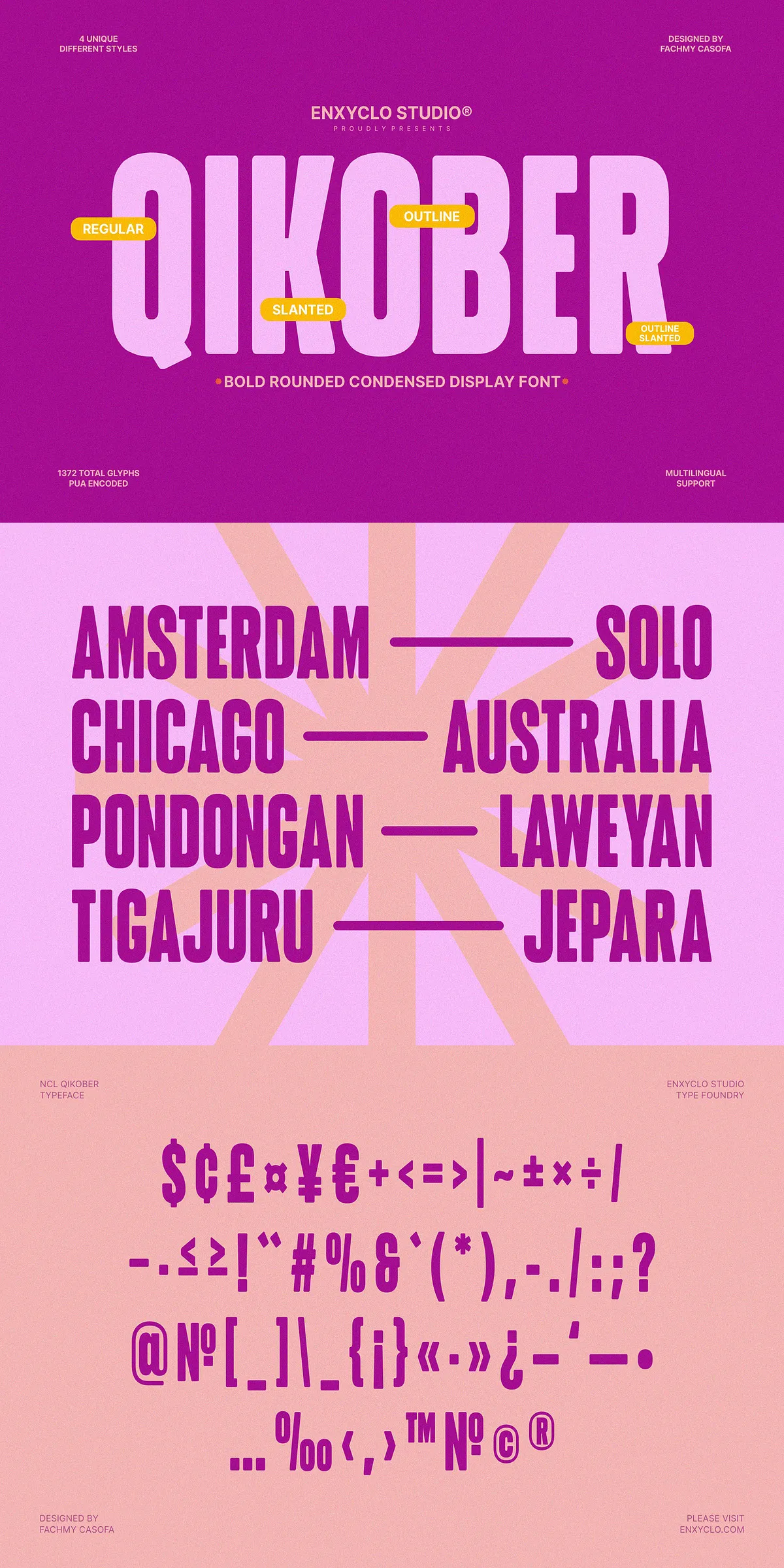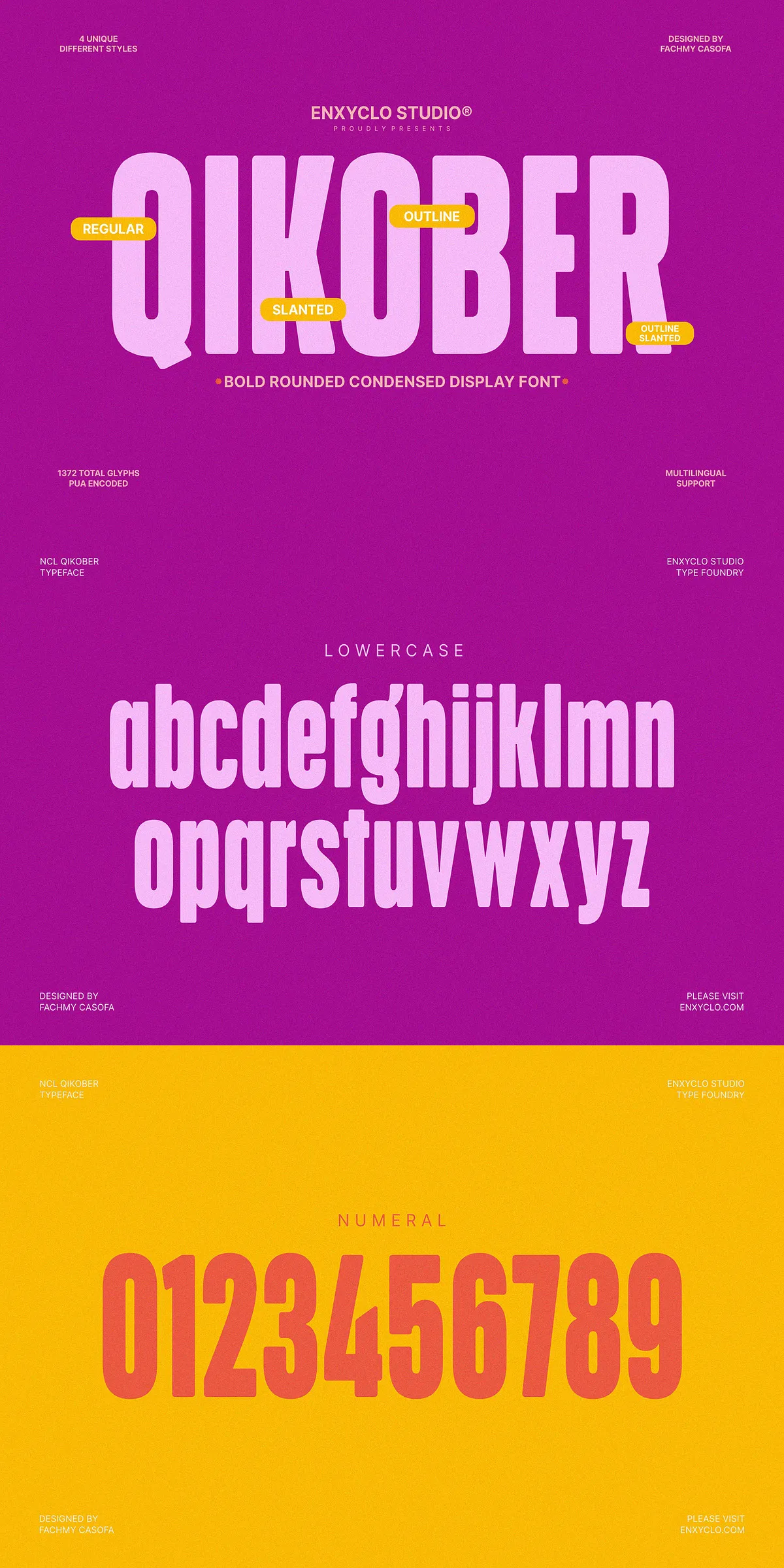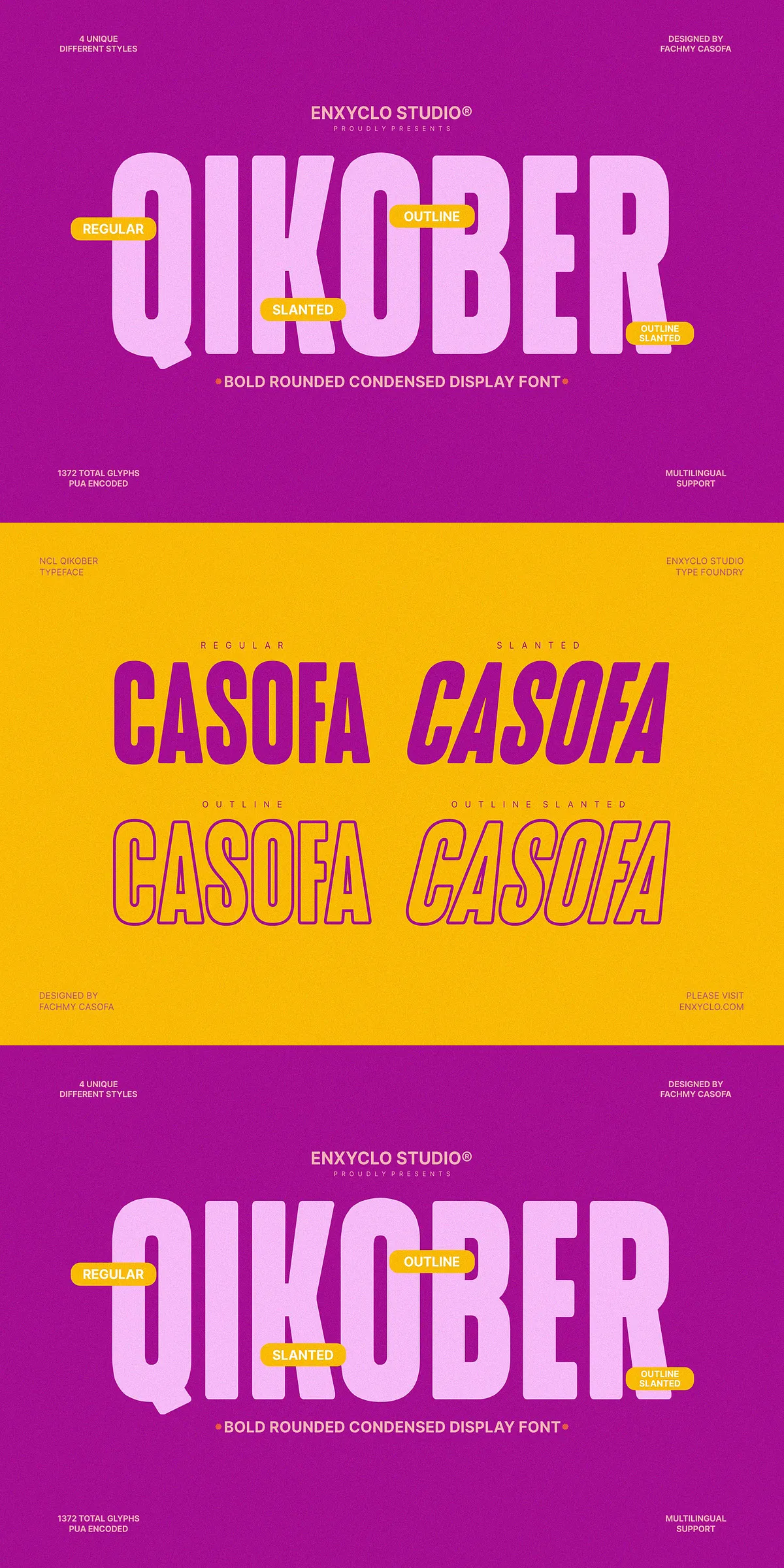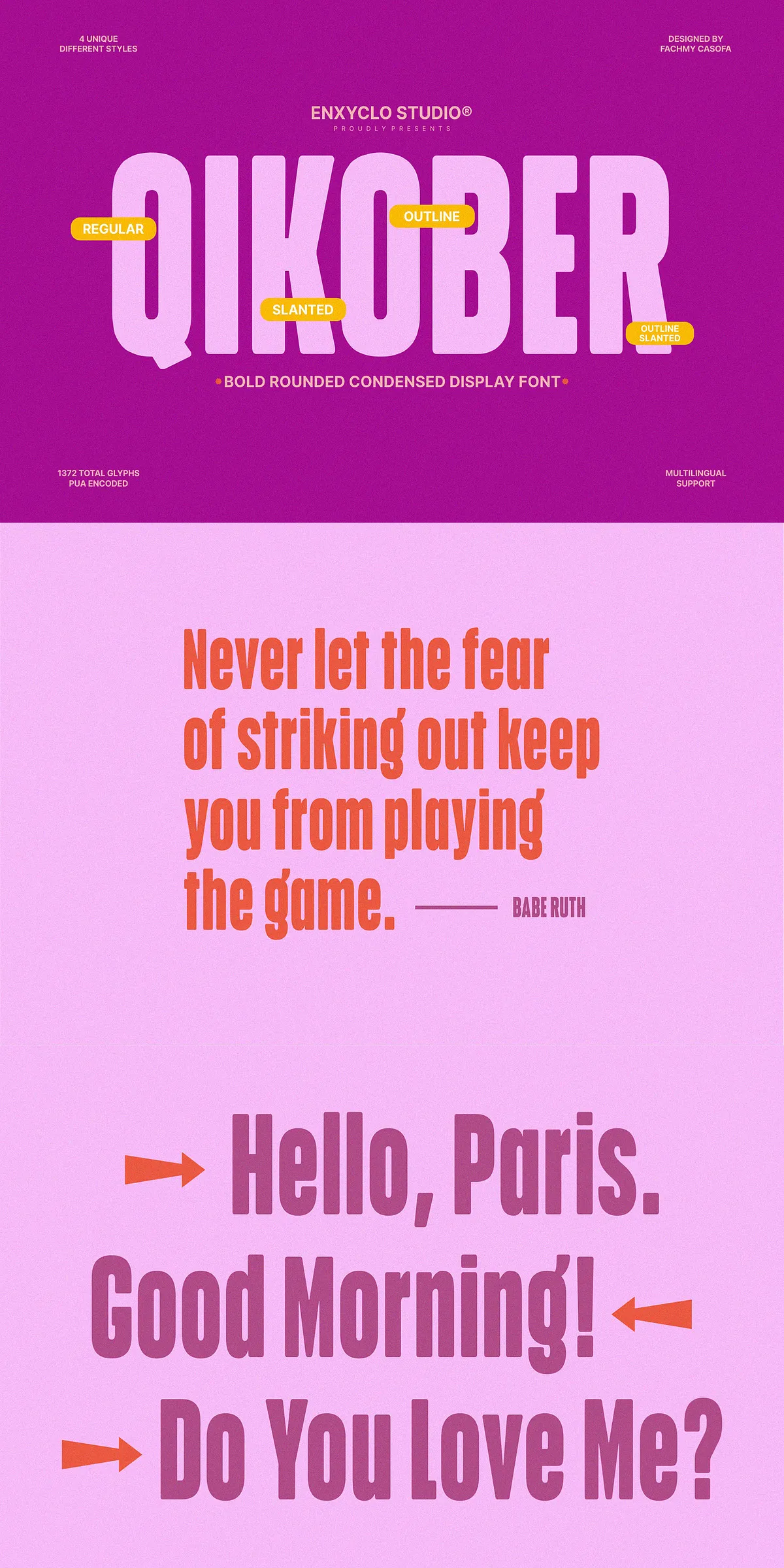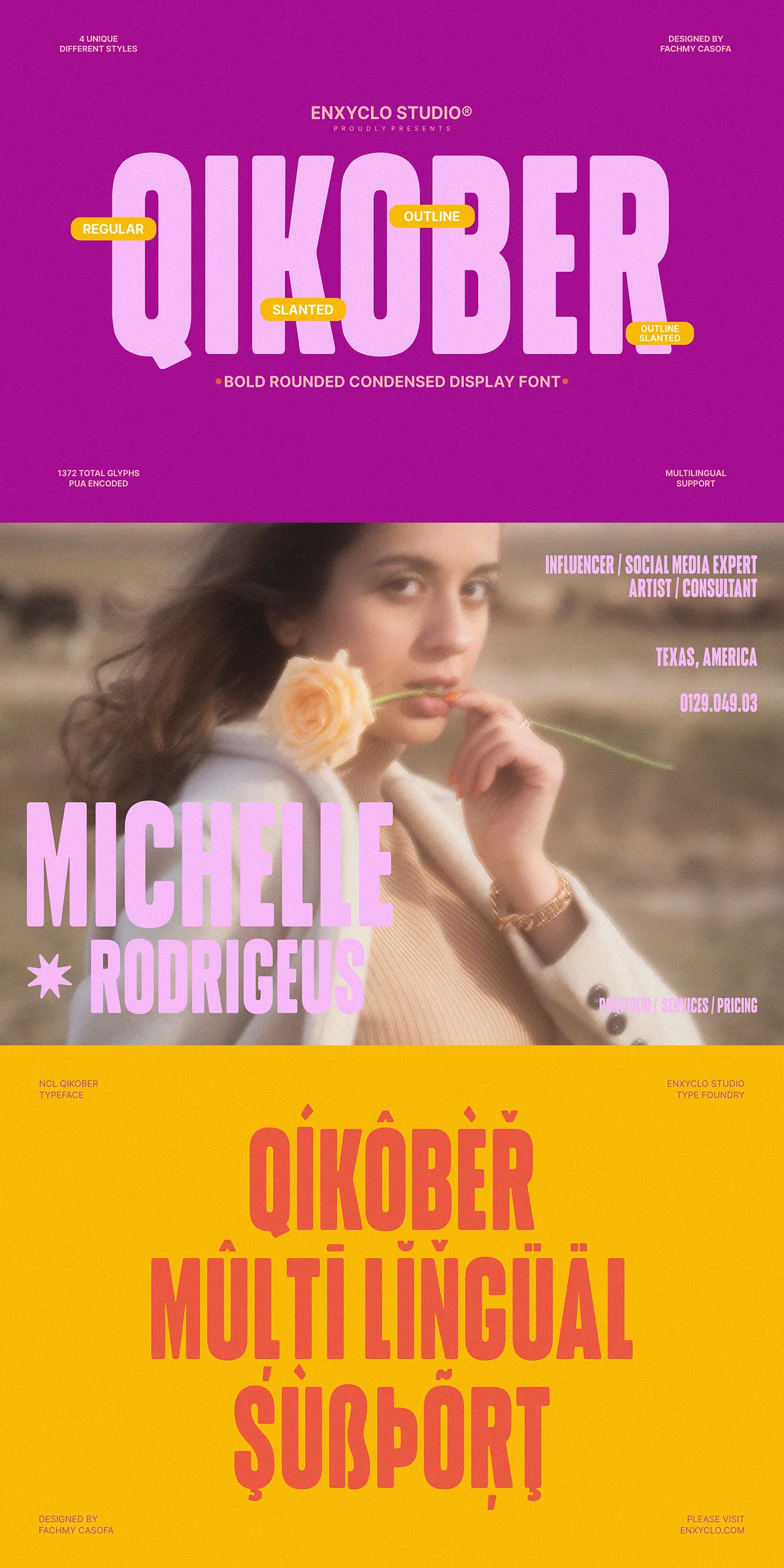
NCL QIKOBER delivers immediate presence and dynamic personality. Designed as a bold rounded condensed display typeface, it pushes creative concepts to the forefront and helps messages land with authority. Whether you create billboard headlines, magazine covers, strong logo marks, or striking web banners, NCL QIKOBER performs reliably at large sizes and remains surprisingly legible at smaller scales. The font actively elevates visual hierarchy and draws attention to titles, calls-to-action, and hero text without competing with supporting design elements.
Design Character And Visual Impact That Demands Attention
NCL QIKOBER pairs condensed proportions with softly rounded terminals to create an energetic yet approachable voice. The deliberately tight letterspacing and robust stroke weight generate maximum impact in display settings. Designers will value how the shapes preserve clarity when resized, how the rounded counters temper heaviness for warmer branding, and how the condensed form saves space while maintaining readability. This balance of strength and friendliness lets NCL QIKOBER lead identity systems, packaging, and editorial headings with confidence.
Intended Use Cases And Creative Applications For Designers
Use NCL QIKOBER for headline-driven design: hero banners, posters, magazine mastheads, outdoor advertising, storefront signage, and product labels. The font thrives in branding systems where a bold focal typeface defines tone and recognition. It also adapts to digital environments—navigation headings, promotional modules, and social graphics—thanks to its optimized webfont formats. When you need to make a statement, deploy NCL QIKOBER to anchor compositions and guide viewer attention directly to core messages.
Glyph Coverage And Styles Included In The Package
The complete family provides a total of 1,372 glyphs across all styles (343 glyphs per style). You get full uppercase and lowercase alphabets, numerals, punctuation, and common symbols. The glyph count supports alternates and diacritics needed for international typesetting. These assets make it easy to craft multilingual headlines, numeric displays, and branded typography systems without resorting to third-party substitutes.
Multilingual Support And Global Ready Typography
NCL QIKOBER includes multilingual support that covers the Extended Latin set, allowing you to run campaigns across many languages with typographic consistency. The font addresses diacritics and special characters used in Western and Central European languages so you can localize messaging without compromising design. This international readiness reduces production friction when adapting layouts and assets for different markets.
Implementation Tips And Pairing Recommendations
Drive emphasis by using the Regular or Slanted styles for primary headings and reserve Outline and Outline Slanted styles for layered or decorative headings. Pair NCL QIKOBER with a neutral humanist or geometric sans for body copy to preserve reading comfort. For digital projects, load the WOFF2 file as the primary webfont for optimal performance and provide WOFF as a fallback for older browsers. Tight tracking works well at large sizes, but increase letterspacing slightly for longer runs of headline text to improve legibility.
Why Choose NCL QIKOBER For Your Next Project
Choose NCL QIKOBER when you need a commanding display typeface that combines condensed efficiency with rounded warmth. The family’s bold appearance, multiple styles, broad glyph coverage, and web-ready formats streamline production and amplify creative impact. It helps brands stand out in saturated visual environments and gives designers a dependable tool for crafting memorable headlines, logos, and promotional graphics. With NCL QIKOBER in your toolkit, your projects gain clarity, character, and commercial readiness.